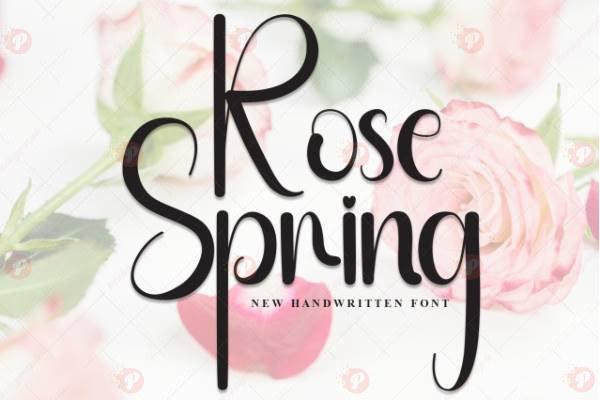
The Rose Spring Handwritten Font Free is a romantic and elegant handwritten script font that captures the beauty of spring in every stroke. With its graceful curves, smooth flow, and natural handwritten charm, this typeface is perfect for wedding invitations, feminine branding, greeting cards, social media posts, posters, packaging, and creative logos.
Its stylish and timeless design makes it versatile for both professional and personal projects. Whether you want to bring a touch of elegance, softness, or modern calligraphy feel, the Rose Spring Handwritten Font Free is the ideal choice.
Typeface: Script / Handwritten
Style: Romantic / Elegant / Feminine / Modern Calligraphy